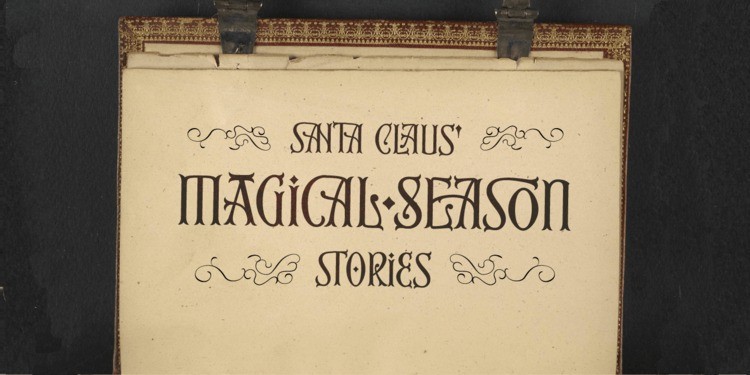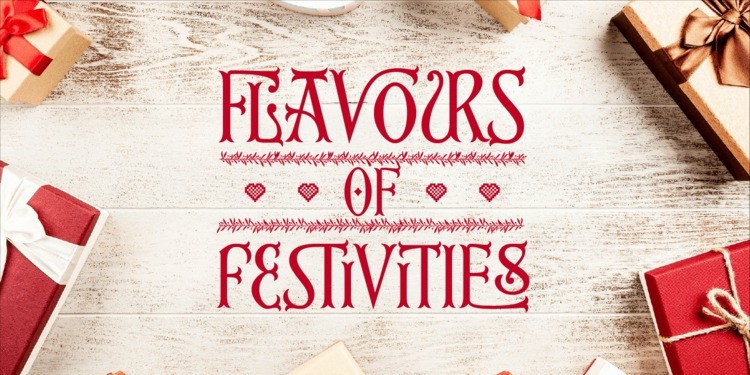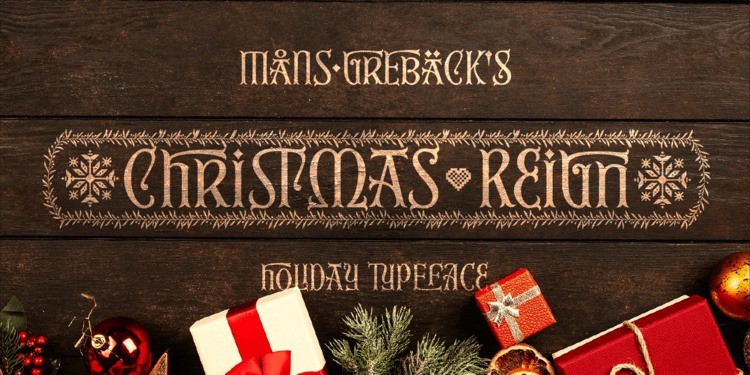
Christmas Reign Display Font
Christmas Reign Display Font is a handmade Modern Victorian handlettering, which is combining modern and classic typography with some awesome alternates. It’s designed and shared by Mans Greback. Try it and see how each letter pair behaves differently, magically creating new ways to connect as the text goes on. You can use these doodles to decorate pictures, Christmas cards, gift tags, social media posts, or anything you can dream up!